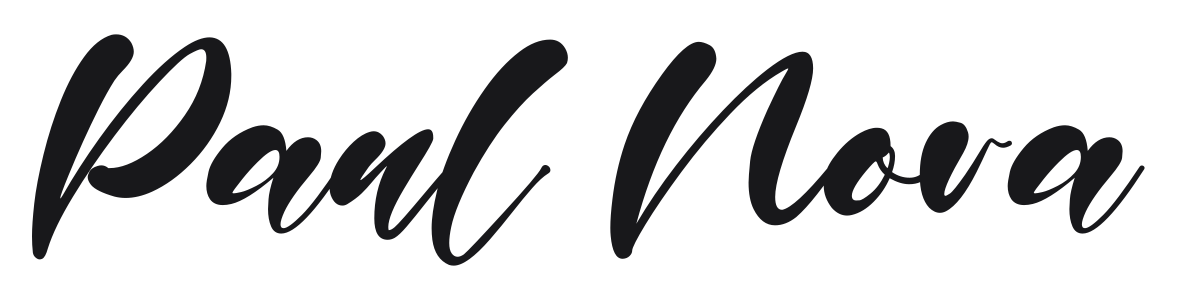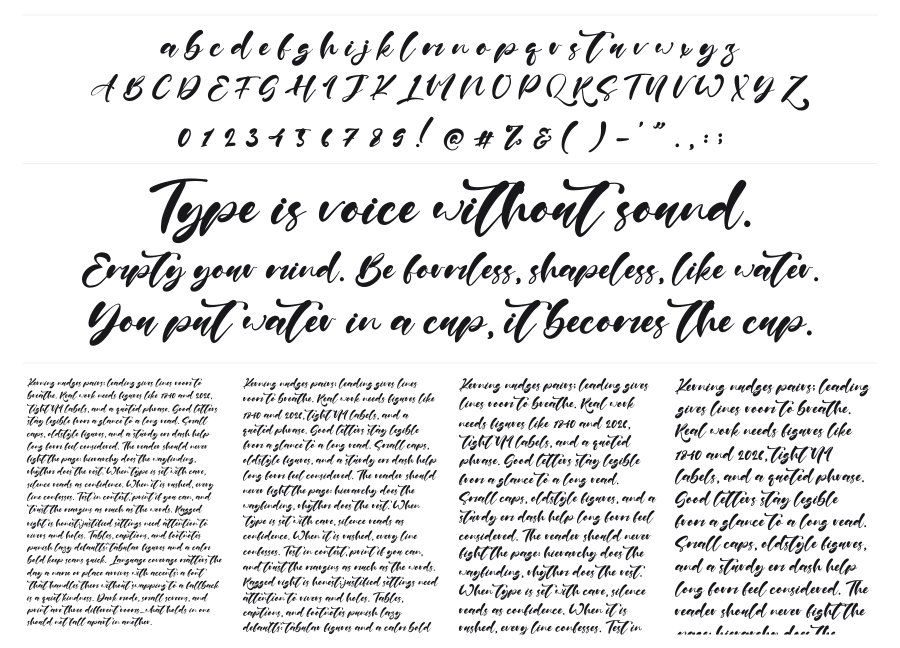
Paul Nora
Paul Nora is a bold modern brush script with sweeping, ink-style strokes and fluid connections between letters. The high contrast between thick downstrokes and delicate hairlines gives it an authentic hand-lettered energy. Strong at large sizes for logos, packaging, and social media graphics.